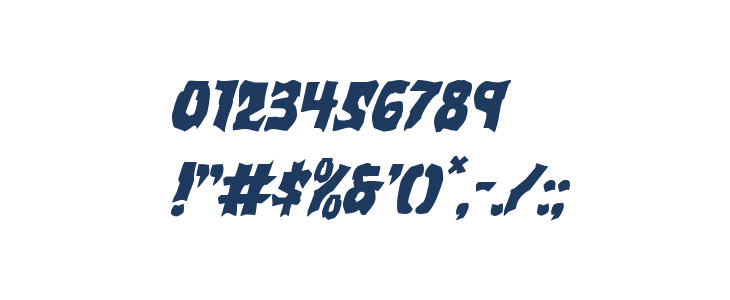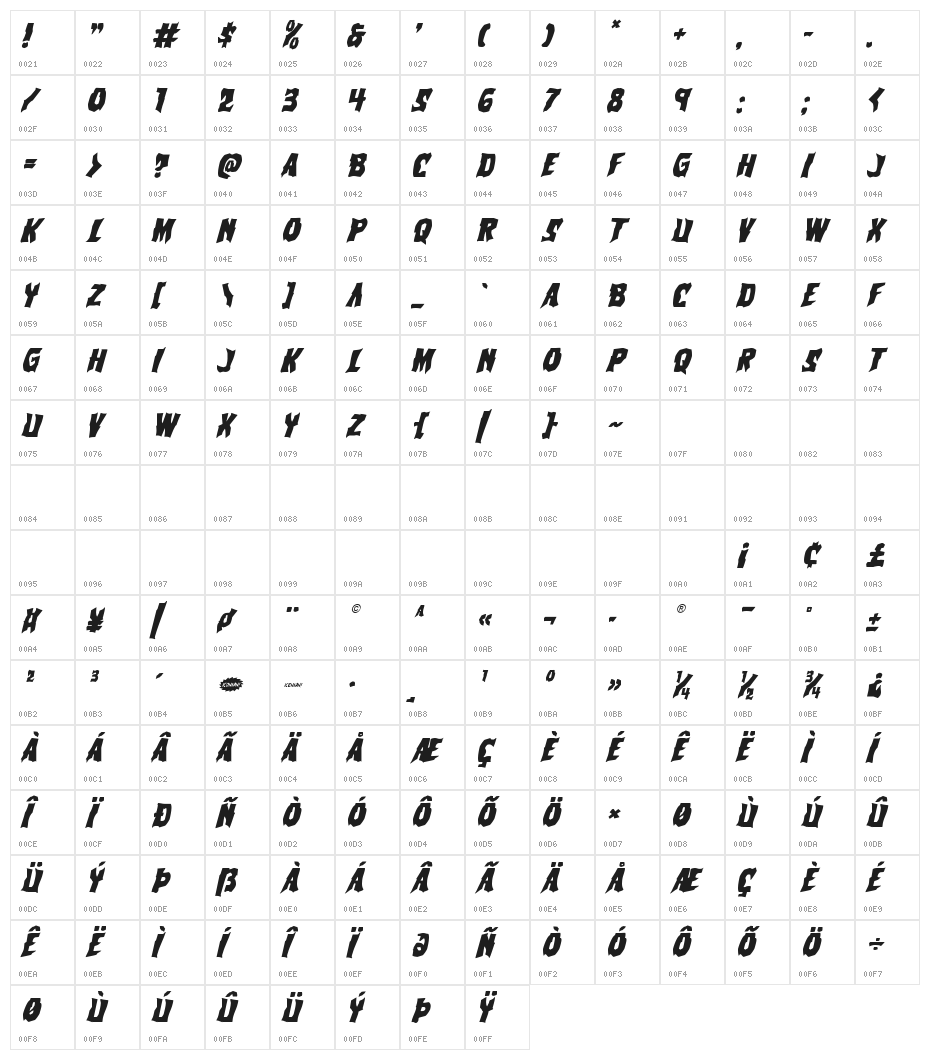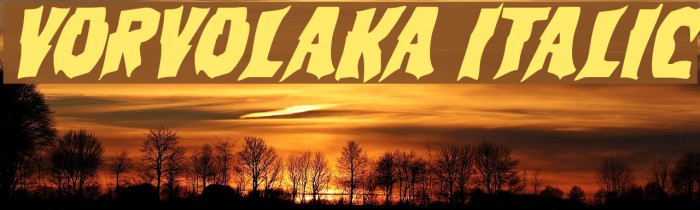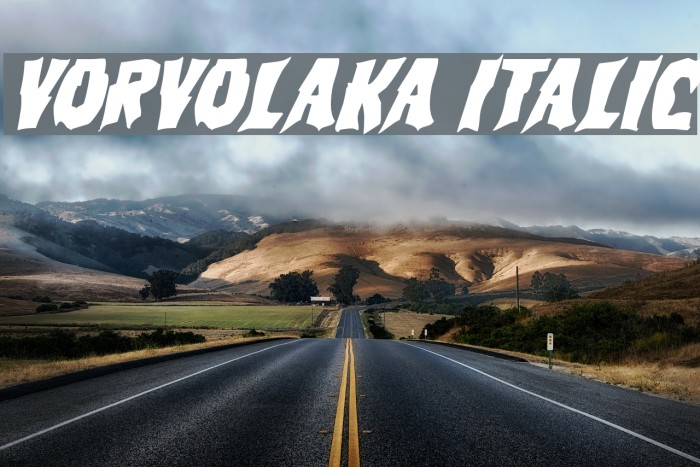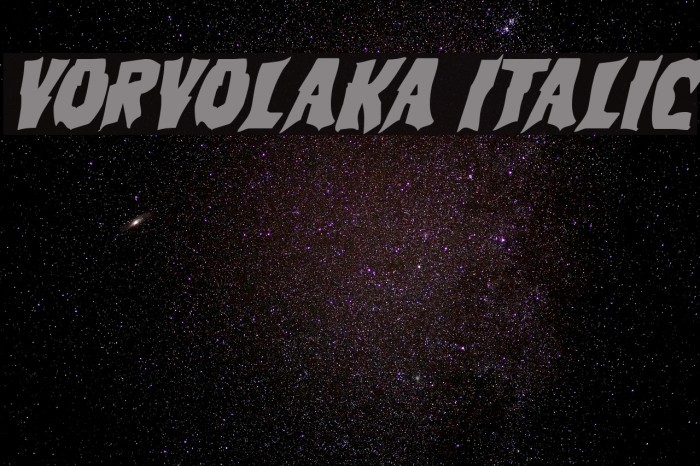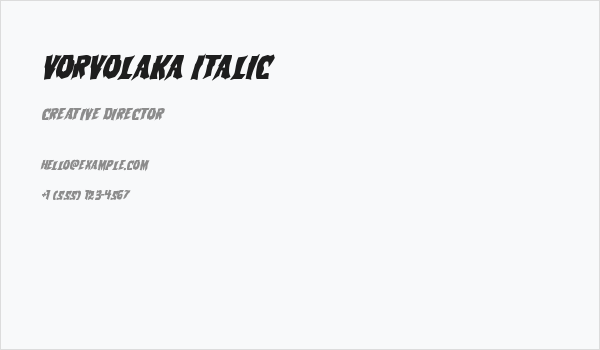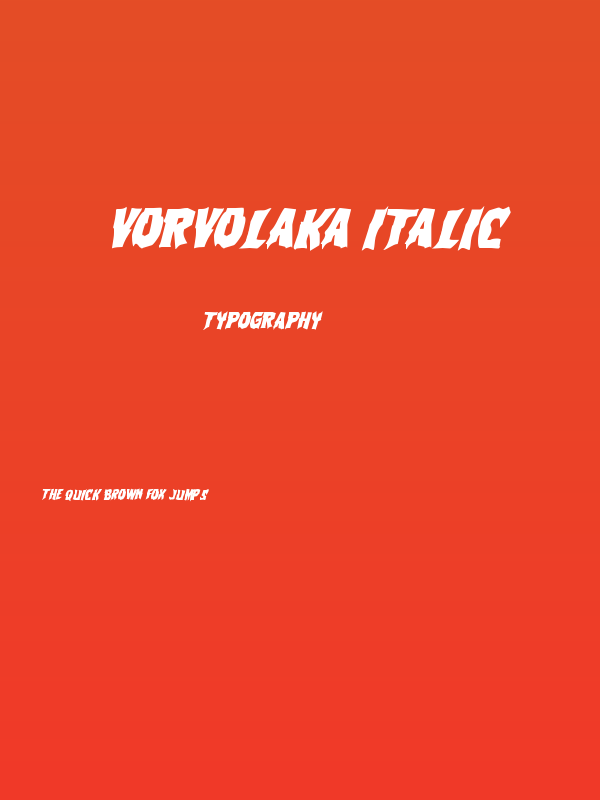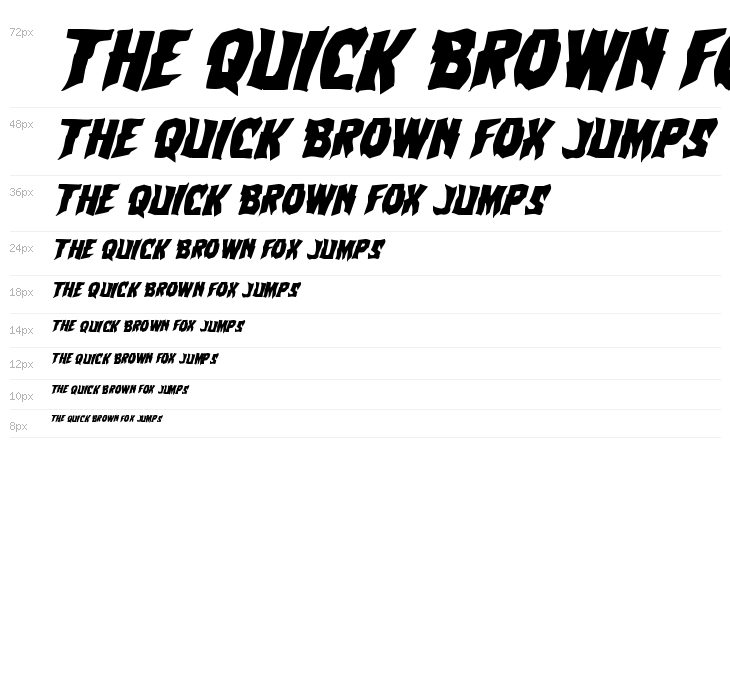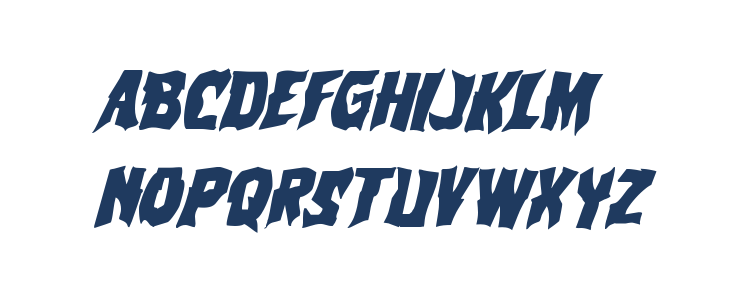
Vorvolaka Italic Font
Vorvolaka Italic Description
This font features a bold, aggressive style with sharp, angular edges and a dynamic, italicized slant. The characters are heavily stylized, giving them a fierce and energetic appearance. The uppercase and lowercase letters maintain a consistent design, with exaggerated serifs and a sense of movement. The numbers and special characters follow the same bold and edgy aesthetic, making the font suitable for attention-grabbing designs. The overall look is reminiscent of a modern, rebellious theme, perfect for projects that require a strong visual impact.
| Overall Style | Modern, Rebellious |
| Proposed Projects | Ideal for posters, album covers, video game titles, and branding that requires a bold statement. |